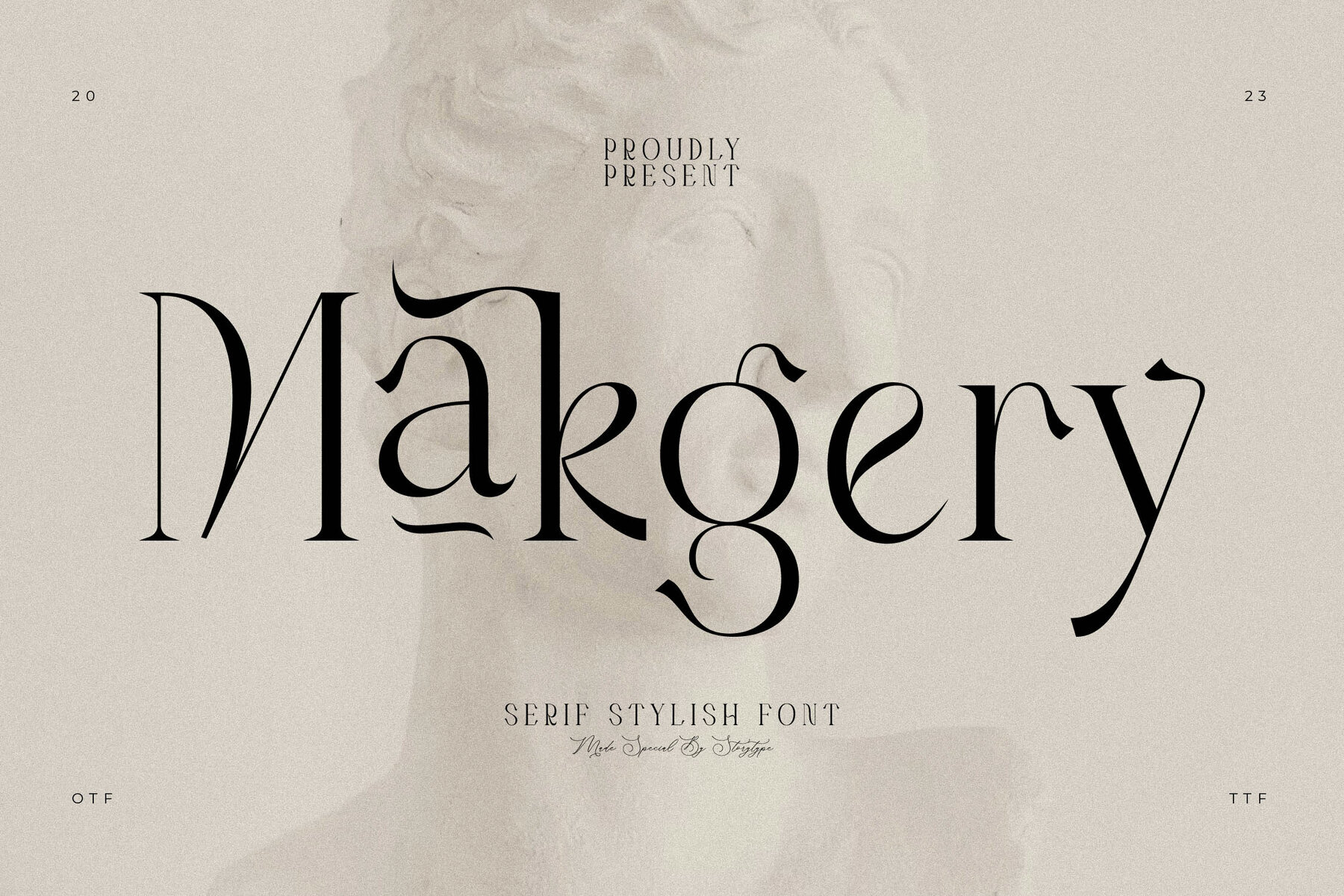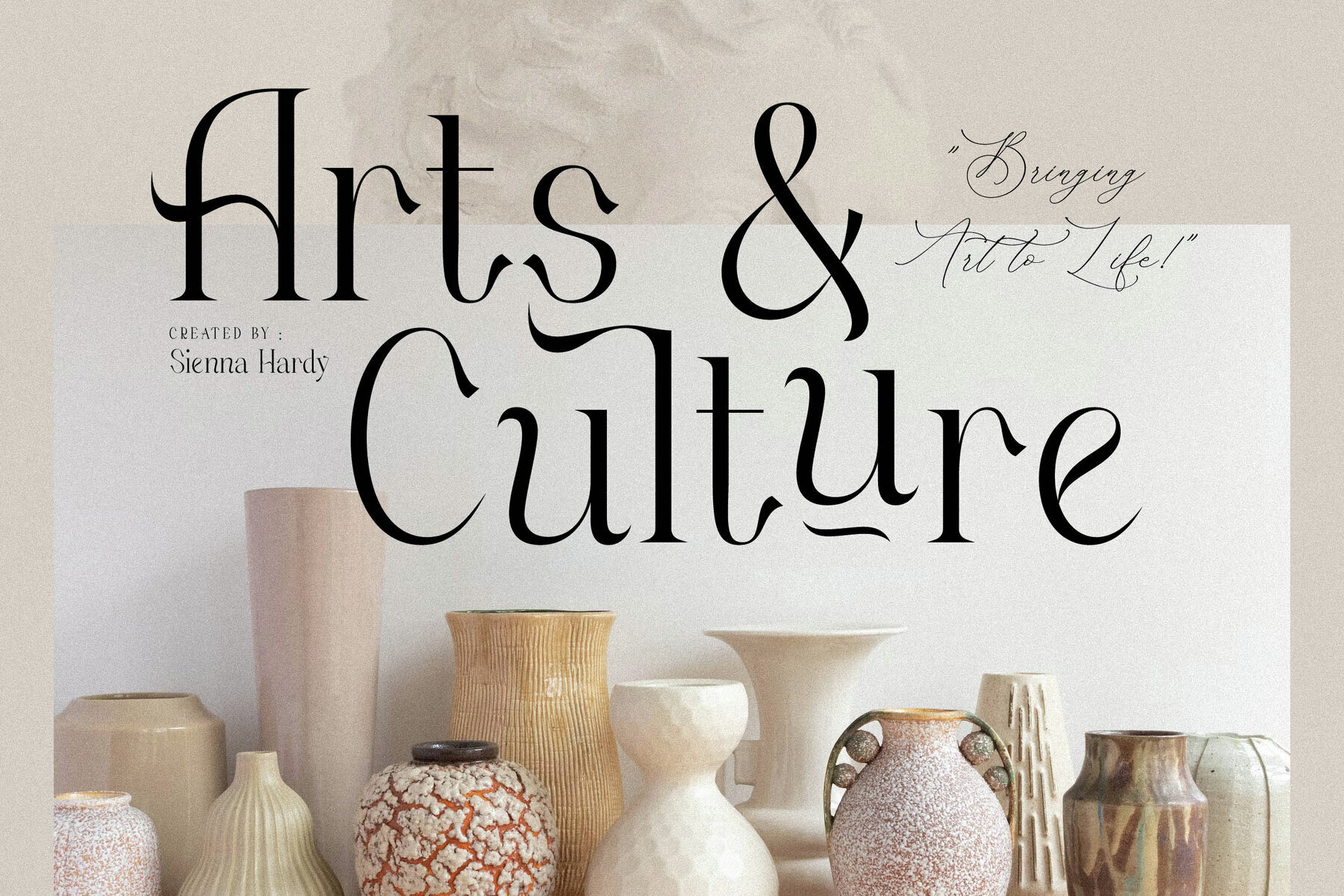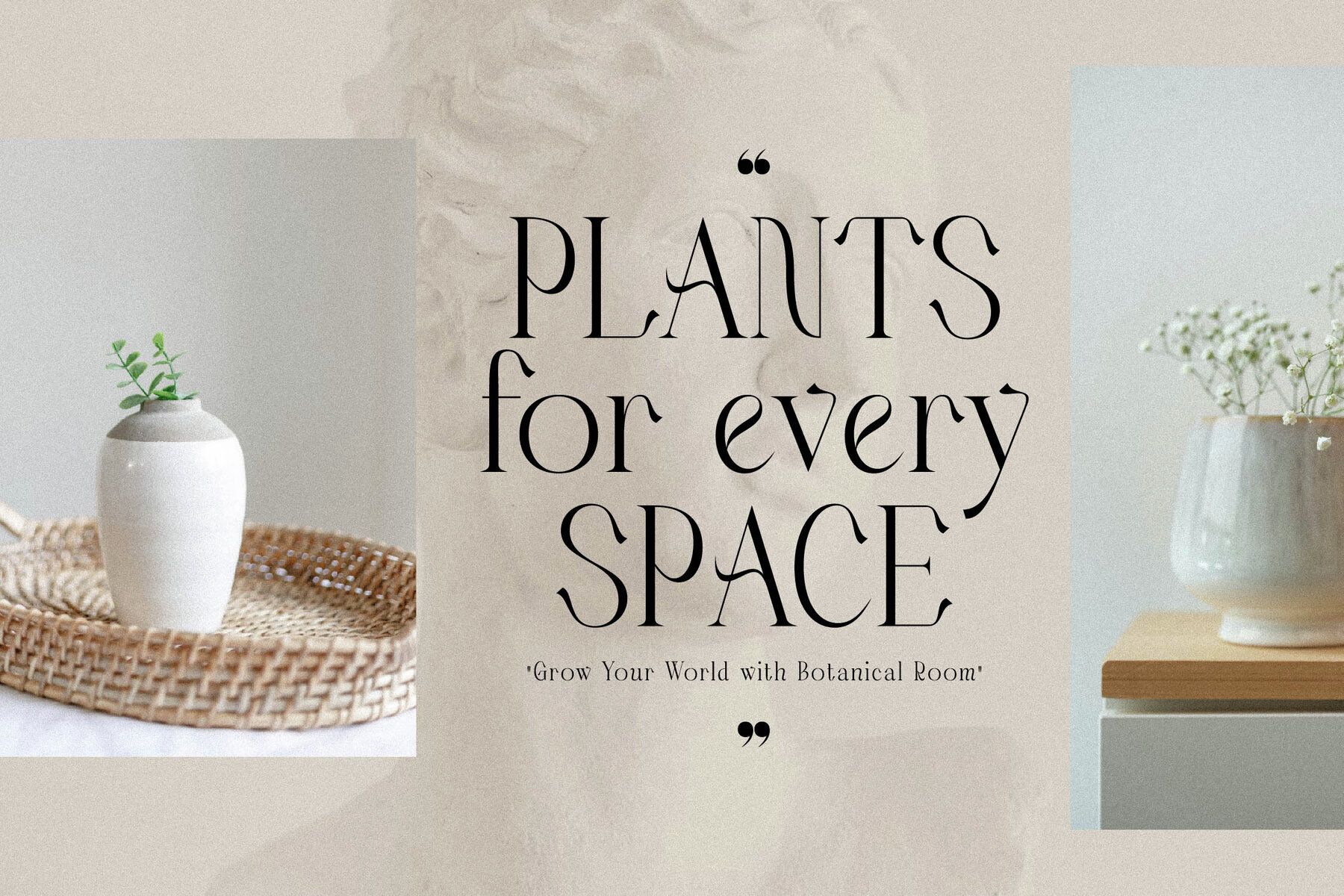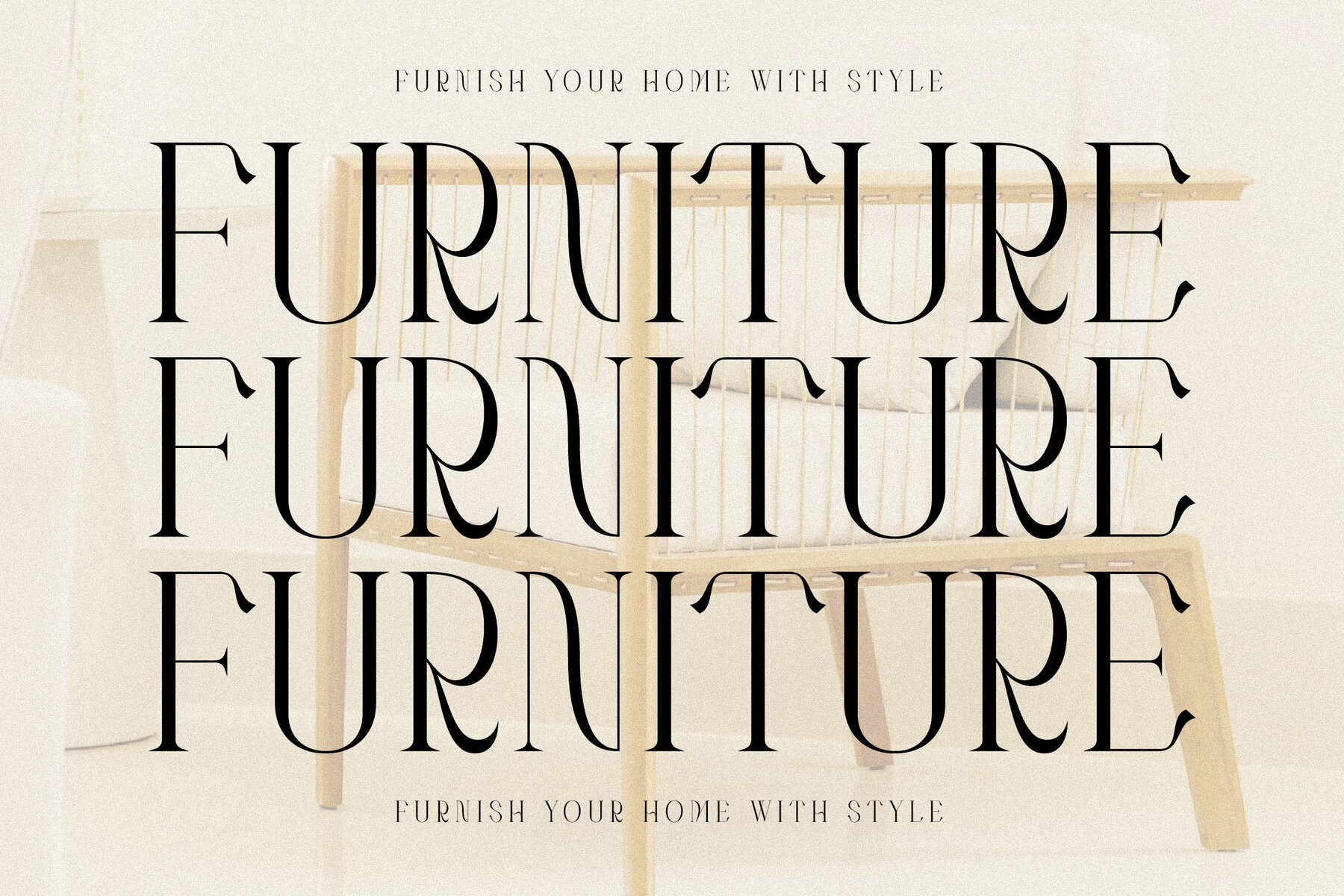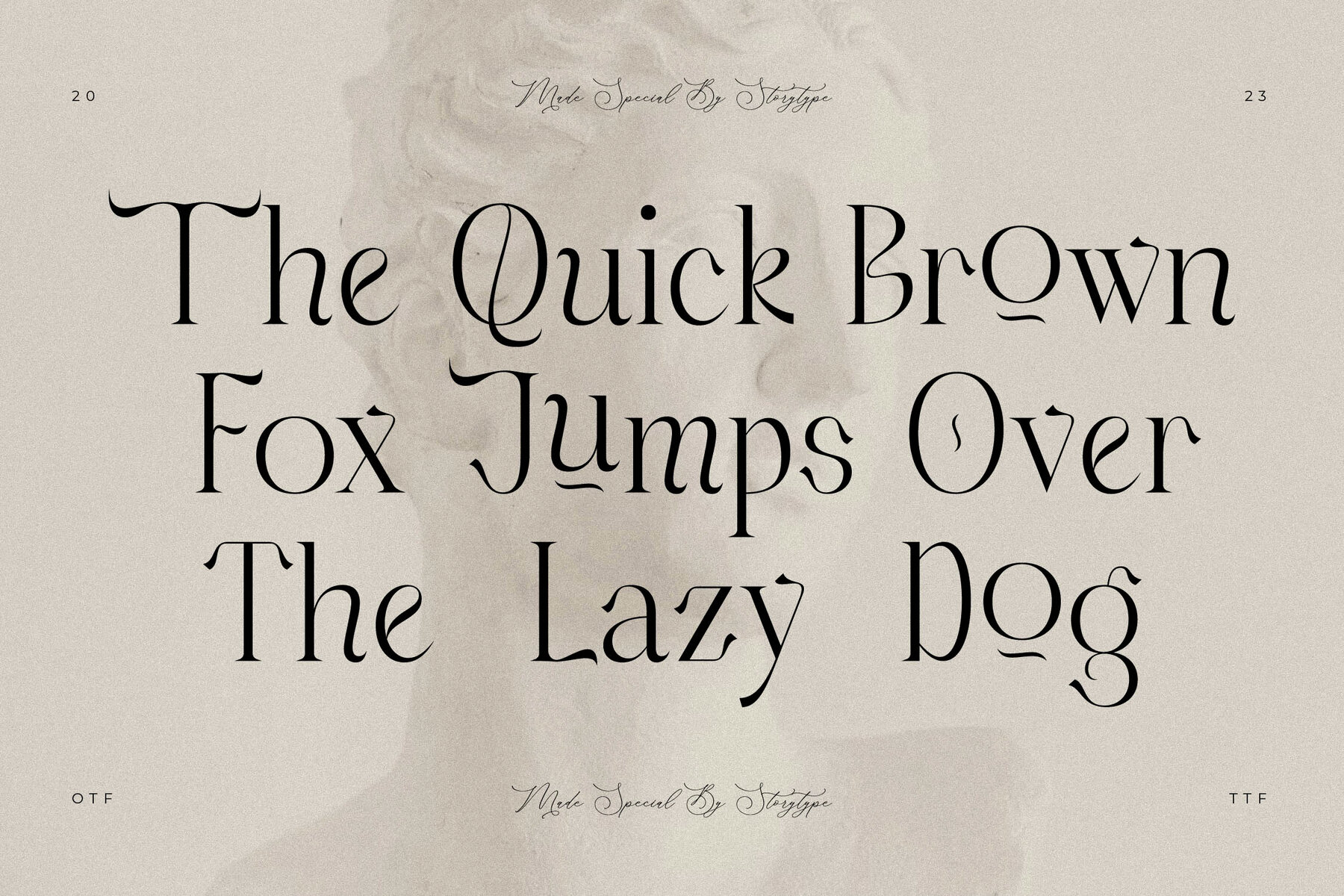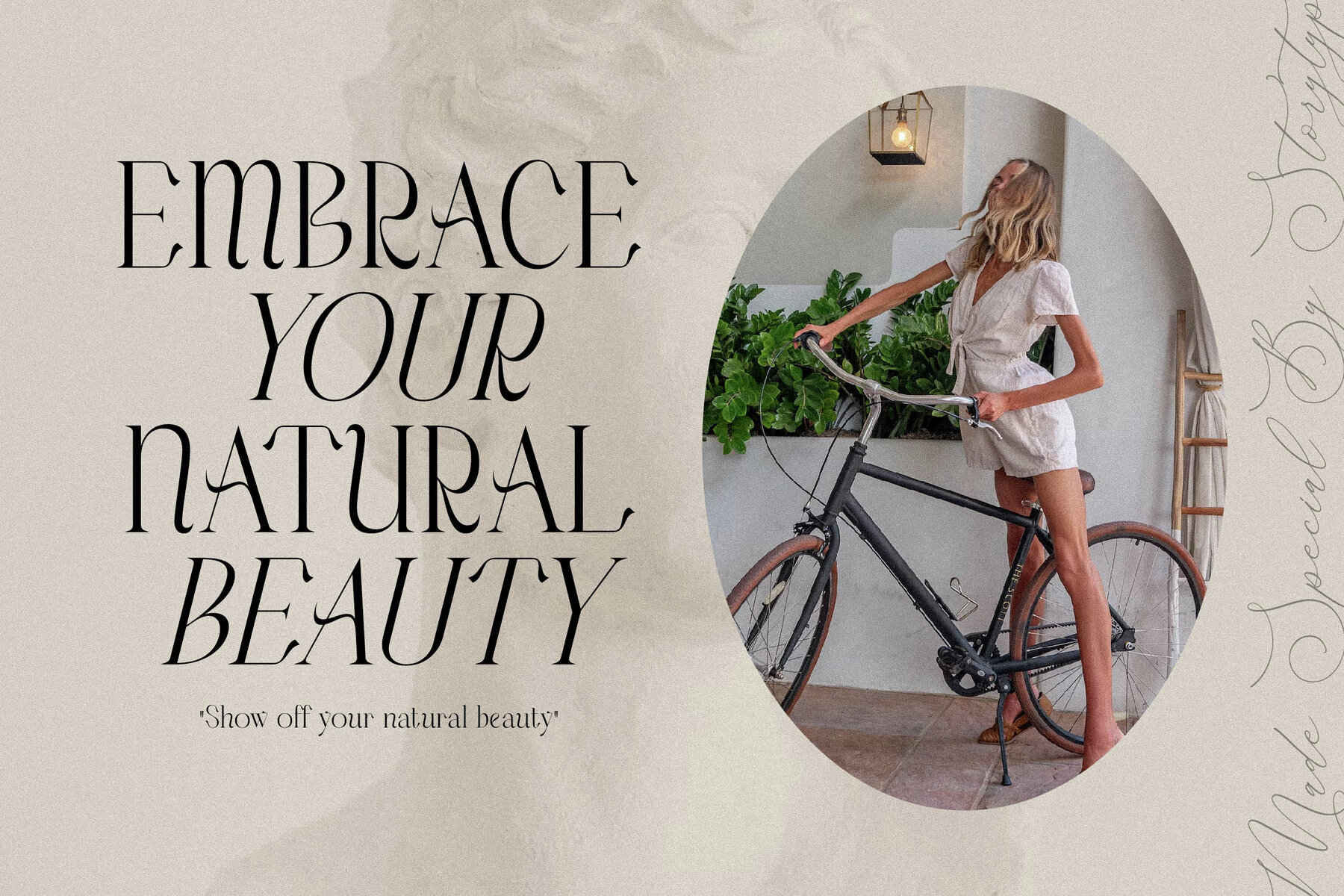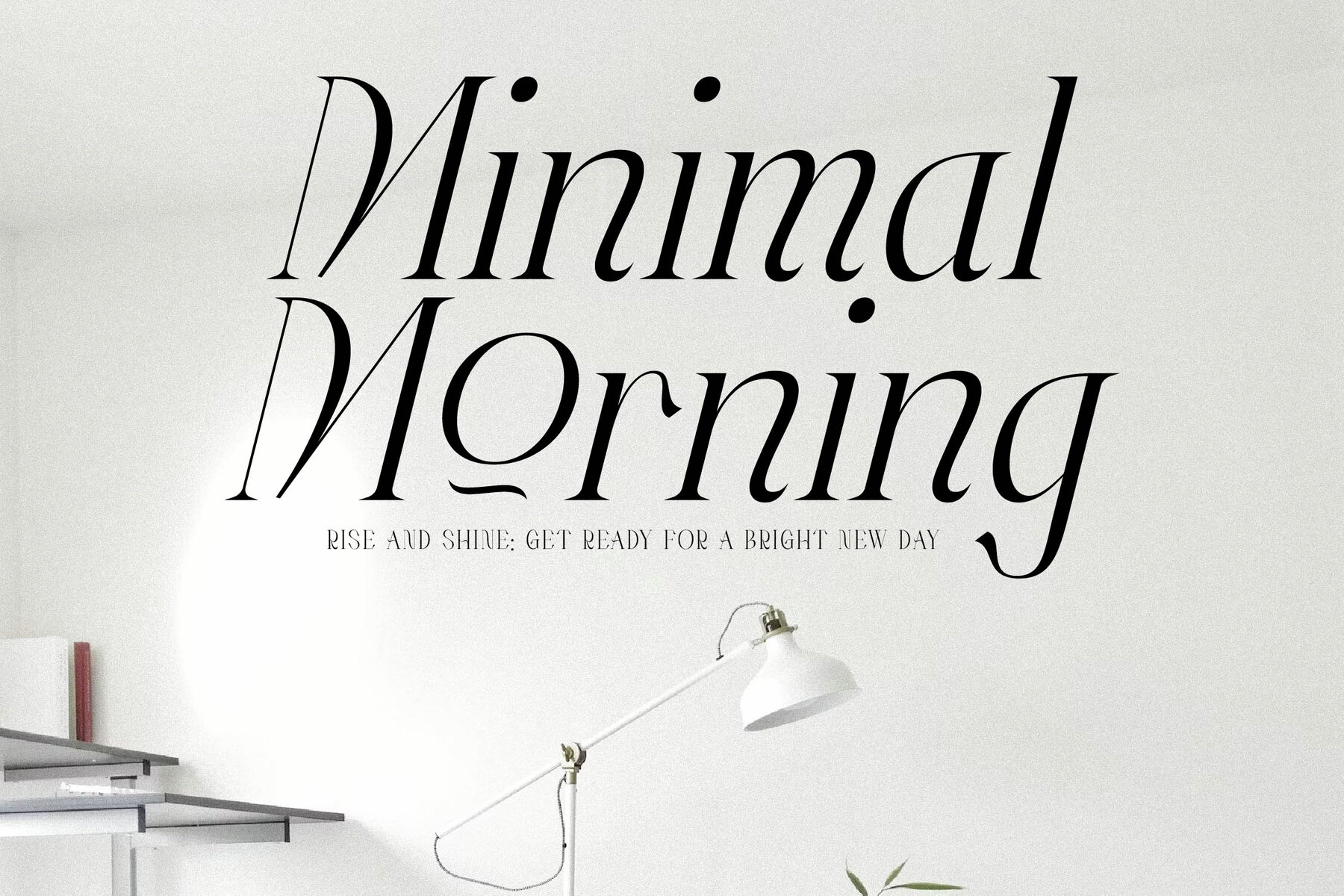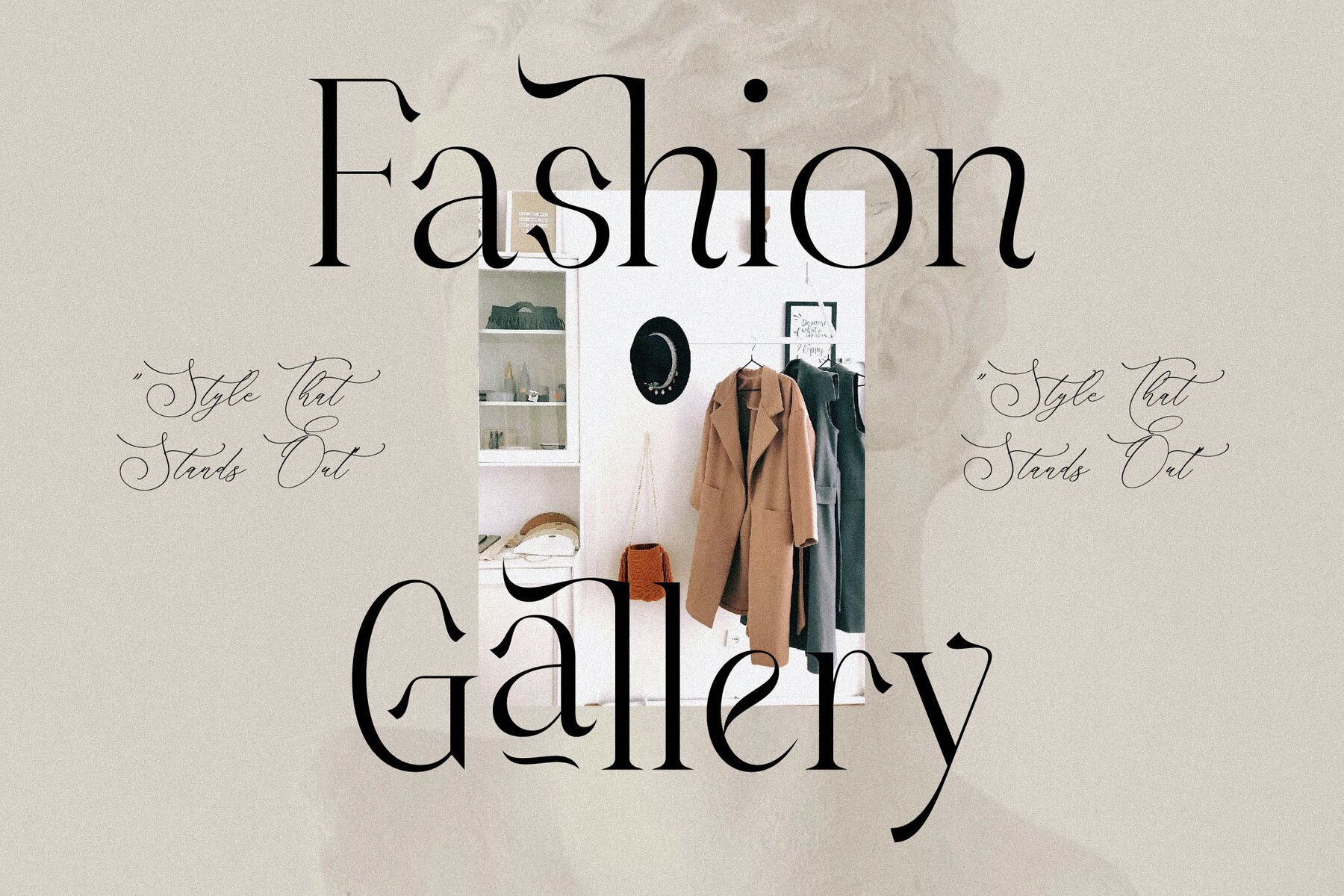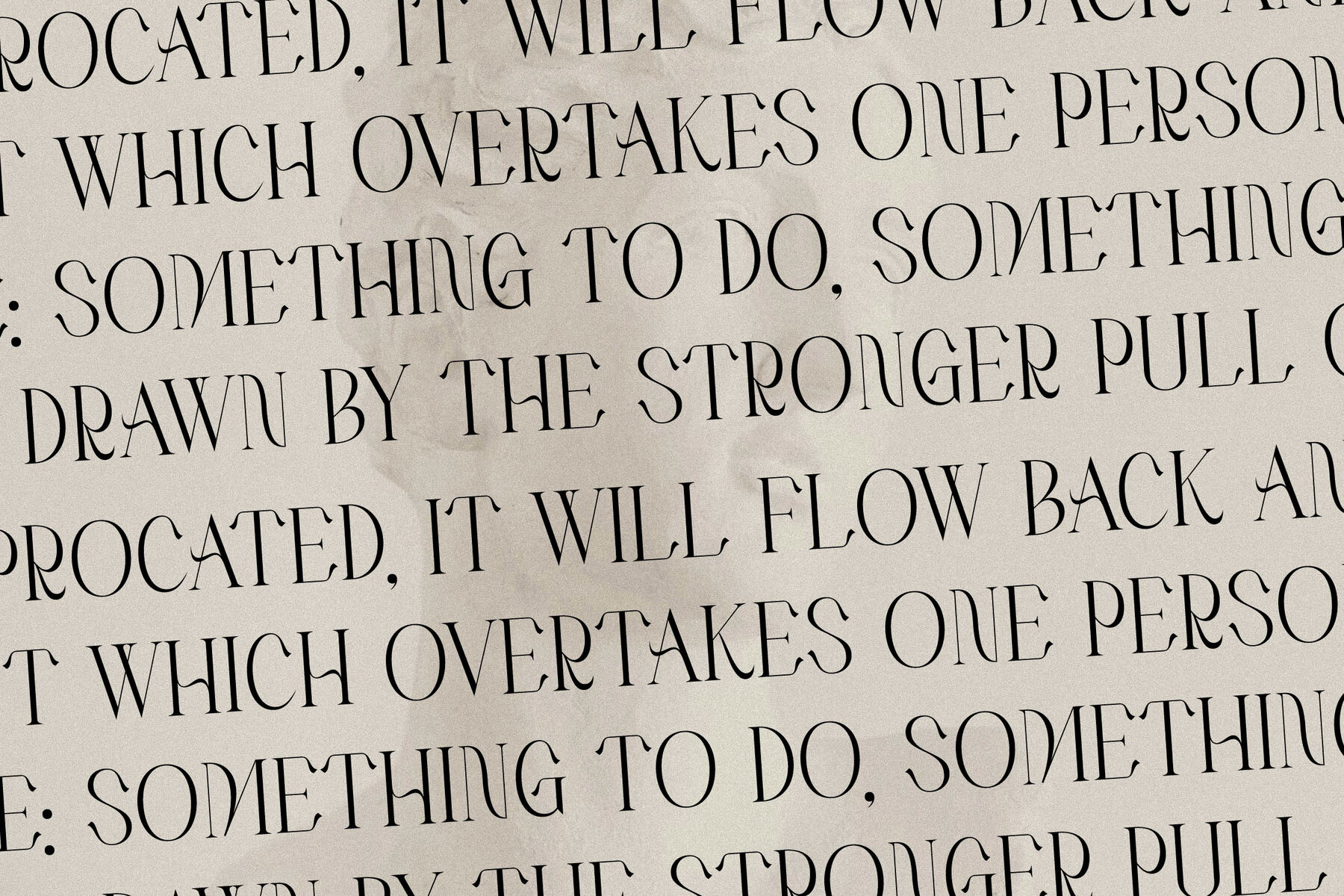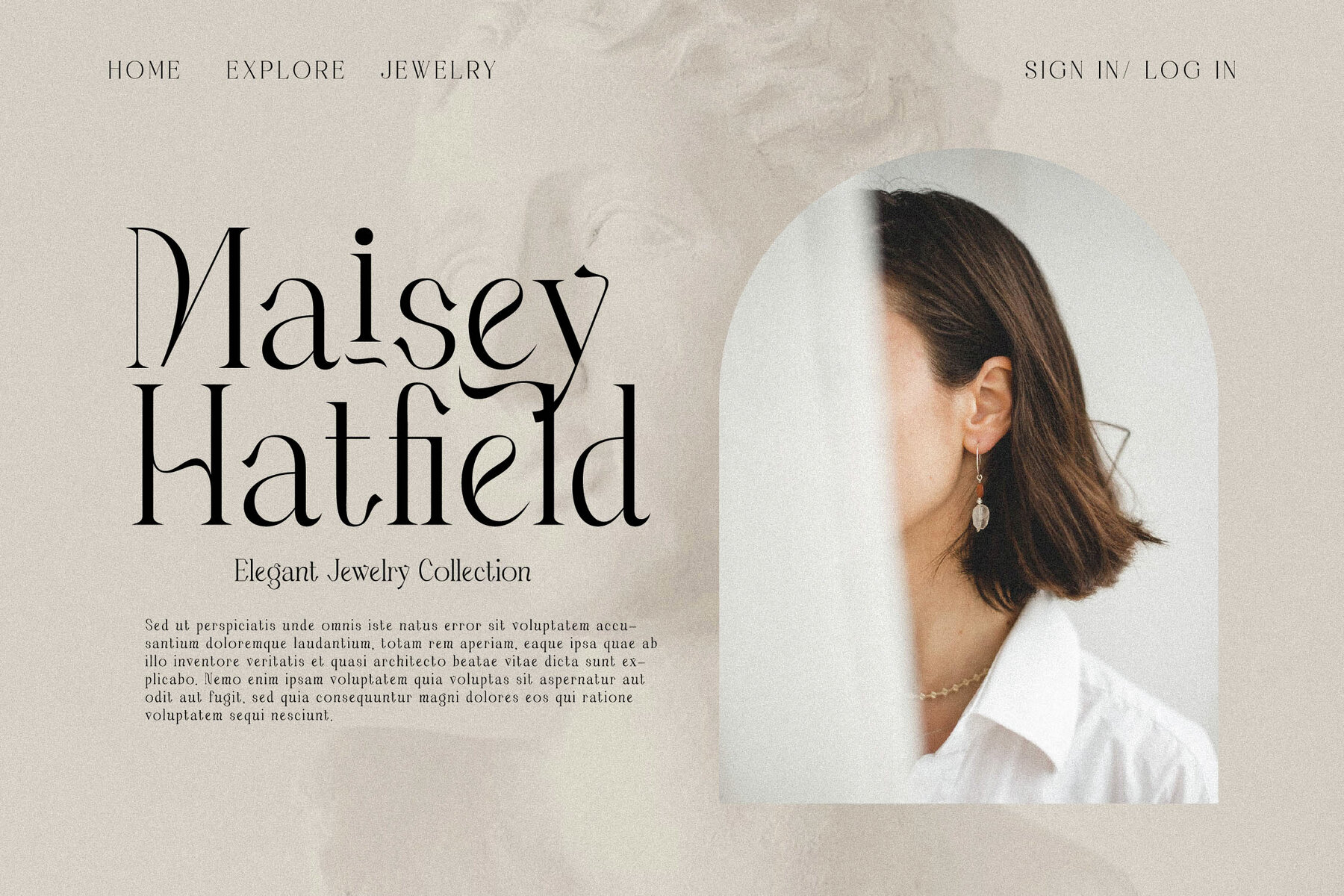
Makgery Font
Experience the timeless elegance of the Makgery Typeface, a distinguished serif font with a harmonious blend of modern and classic aesthetics. This typeface adds a sophisticated touch to luxury logos, book and movie titles, fashion brands, magazines, clothing labels, and more. Let its unique style elevate your design projects with a seamless balance of class and contemporary appeal.Makgery Typeface by Storytype Studio